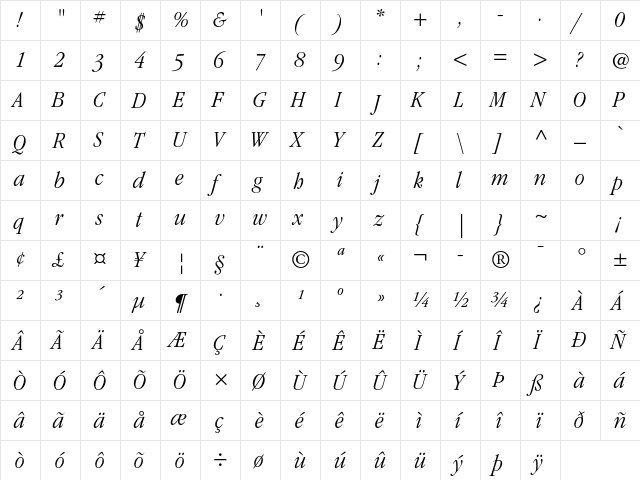
ITC Garamond Std Light Narrow Italic Font Preview
| Style | Light Narrow Italic |
| Designer | Tony Stan |
Design Context for ITC Garamond Std Typeface
ITC Garamond Std is a composed and adaptable typeface that performs quietly and consistently across a wide range of design contexts. Its italic angle brings a sense of urgency and motion to the letterforms. The delicate stroke weight brings airiness and refinement to layouts. The condensed width makes it efficient for tight spaces without sacrificing legibility.
Pro Tip: Try ITC Garamond Std for annotation and caption copy alongside an upright companion — the contrast in angle creates a dynamic but ordered typographic system.